21+ Best Free Gothic Fonts for Fantasy Lettering Art Designs
Need a Gothic font that is also free? Then dive into this amazing list of freebies below.
Top Premium Gothic Fonts
1. Forsaken Fantasy Lettering (TTF, OTF)
Give your designs that vintage look with the incredible Forsaken Fantasy Lettering. This download includes all the characters you need as well as 50 additional bonus glyphs! You'll also get international language support, along with several high-quality font files.
2. Vrugoth Handmade Font (TTF, OTF, WOFF)
Handwritten typefaces are always perfect for that authentic, handmade feel. Now you can add a little grunge to your Gothic themes with the Vrugoth handmade font. Easy to install, this font works on many programs, including Microsoft Word. Check it out!
3. Cameo Sweet Gothic Letter Font (TTF, OTF, WOFF)
The traditional Gothic font style makes a simple cameo in this cool typeface from Creative Media Lab. With newly updated characters, you'll get to enjoy exceptional glyphs and alternate characters to complete your inspiring designs. Try it out on posters and more!
4. Fenrir Gothic Fantasy Lettering (TTF, OTF, WOFF)
Easily toggle alternate characters with the caps lock for this brilliant new font, Fenrir Gothic Fantasy Lettering. A strong display typeface with a nice, clean design, this font will give you a modern twist on an old-fashioned aesthetic. Make your posts pop with Fenrir Gothic!
5. Cambridge Gothic Fonts (TTF, OTF, WOFF)
Need a distinguished font for your next book cover? Try the exquisite Cambridge Gothic Fonts. This Gothic font features gorgeous decorative letters you'll definitely love. Try it out on logotypes, apparel, and more.
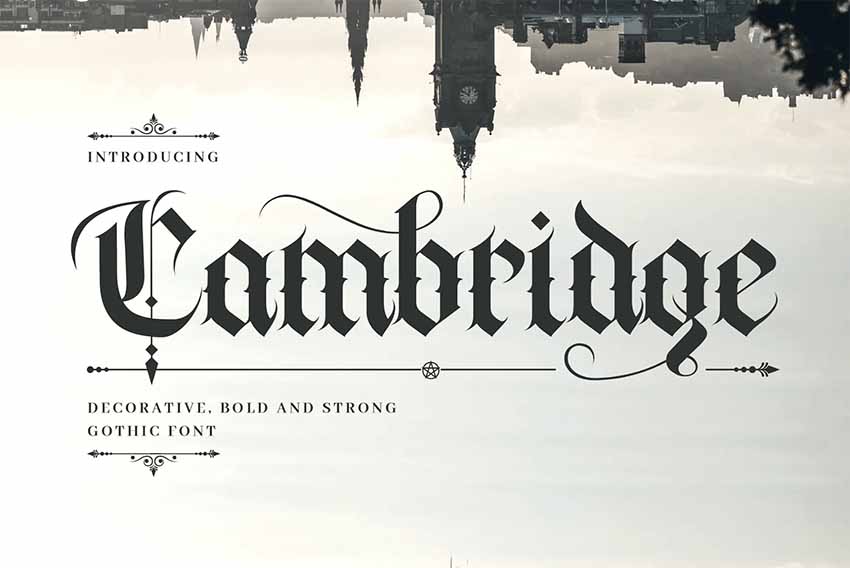
6. Samaz Wicked Gothic Lettering Styles (TTF, OTF, WOFF)
When you're looking for a font that has a personality all of its own, choose Samaz Wicked Gothic Lettering Styles. This stunning font is just what you need to make those special projects shine.
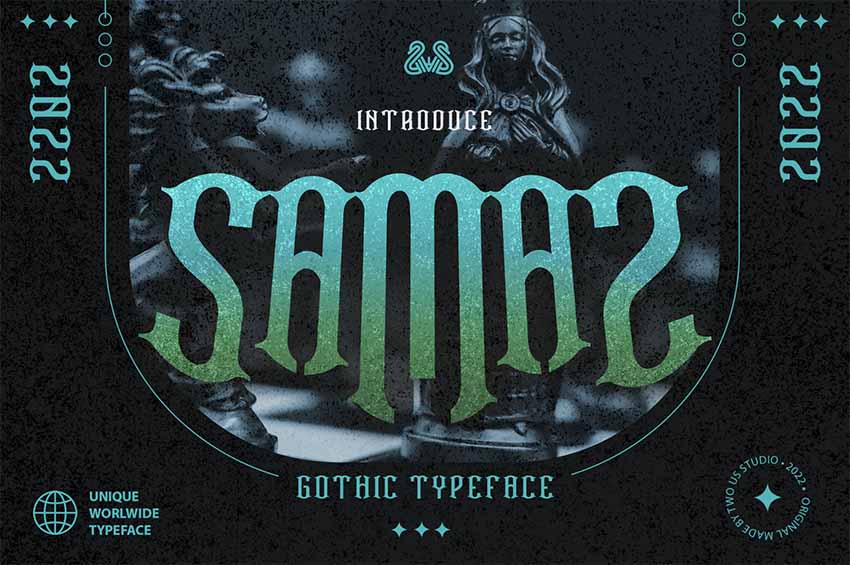
7. Old Charlotte Gothic Alphabet Font (TTF, OTF, WOFF)
Old Charlotte Gothic Alphabet Font combines Gothic traits with eye-catching blackletter calligraphy. This terrific font is perfect for book covers, websites, branding, and more.
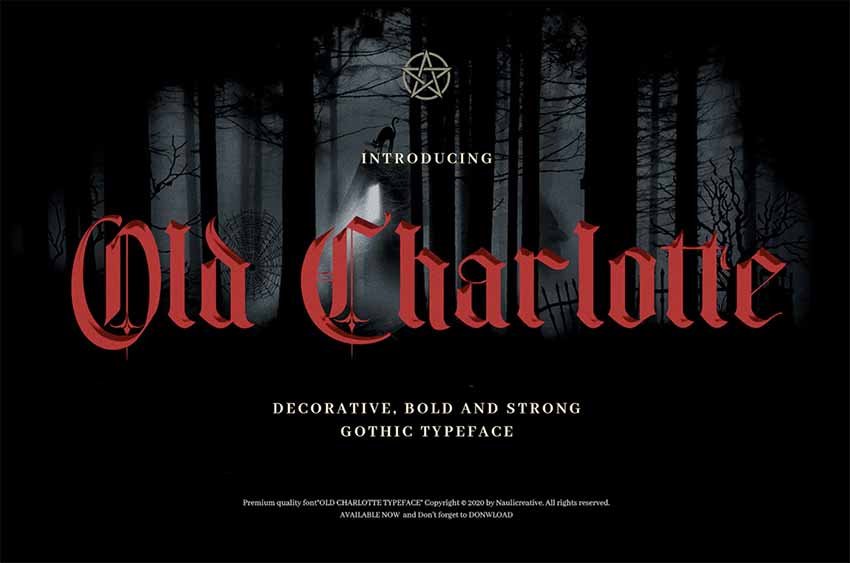
8. Grounded Gothic Font Lettering (TTF, OTF)
There's nothing quite like the allure of Grounded Gothic Font Lettering. This elegant font offers a clean and modern interpretation of Gothic. Try it out for your titles, posters, and more.
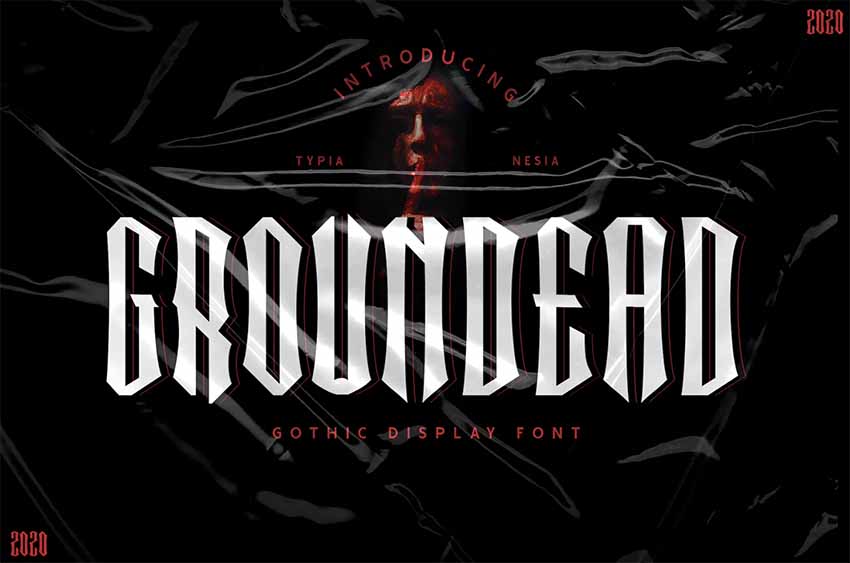
9. Gothic Number Font (TTF, OTF, WOFF)
When you need a font that offers strong and eye-catching numbers, choose Gothic Number Font. As well as offering bold and unique numbers, the font also contains upper and lowercase characters and punctuation.
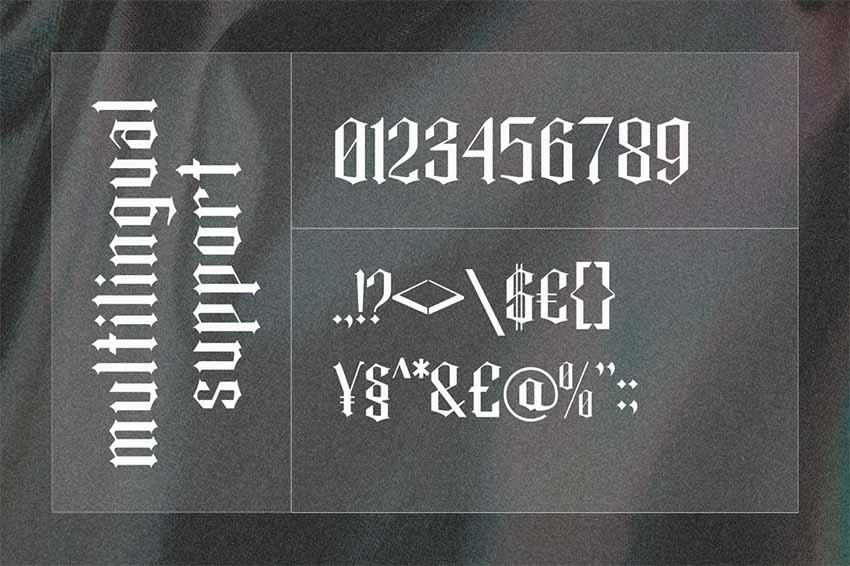
22 Free Gothic Fonts
Ready for the freebies? There are many great places to find free fonts online. Here are a few with exceptional designs from around the web.
1. Death Crow Font
Let's rock out with this cool Death Crow font from designer Kid Cool. This handwritten typeface features an epic death-metal theme mixed with old-world elements. Try it out as an official logotype or stamp it on any vintage poster for a wicked result.
2. Gothic Tangram Font
Next up on this list is the stunning Gothic Tangram font from Pedro Pazitto. Designed with Adobe Illustrator and Font Lab Studio, this font features elegant Gothic letters with a modern touch. Get access to a full pack of letters, numbers, and punctuation in this download.
3. Gothic Font
Gothic fonts are one of the best ways to set the mood for your graphic designs. Check out this free font, Gothic Lohampwow, for instance. Designer Dmitry Lokamp created this font in just six months with a few similar dark themes in mind. Try it out on posters and apparel!
4. Akusta Hebrew Type
Some of the best fonts are also inspired by different languages. The Akusta Hebrew Type, for example, features an elegant Gothic aesthetic made from Hebrew letterforms. Additional ligatures are also included to make a special set of new letters. Give it a try!
5. Wesley Gothic Font
Creatives shouldn't be turned off by the vintage look of many Gothic fonts. This Wesley Gothic typeface, for instance, features a futuristic design with clean, sharp letters. And in this download you'll also get a full set of letters to complete your next designs.
6. More Gothic Letter Font
Many modern fonts take bits and pieces of vintage handwriting for a whole new design. Take the More Gothic Letter Font, for instance. Featuring a condensed Gothic font with chunky letters, this font is bold and daring. Use it on important headlines and more.
7. Cheddar Gothic Stencil